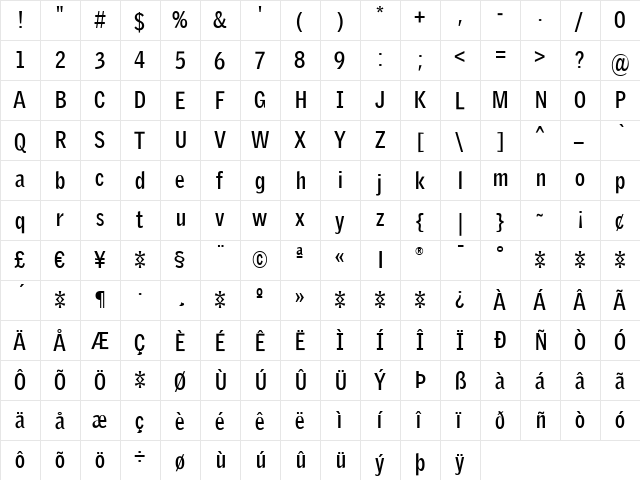
GriffithGothic Cond Bold Font Preview
Design Context for GriffithGothic Cond Typeface
GriffithGothic Cond has the quiet confidence of well-executed sans-serif typography: versatile, unobtrusive, and dependable at any size. The heavy weight commands attention and anchors typographic hierarchies. Its narrow stance lets it pack a punch even in space-constrained designs.
Well-suited to navigation labels, product packaging, and anywhere legibility at scale is essential.
Font Pairing: Use GriffithGothic Cond for headlines alongside a lighter-weight sans or serif for body copy to establish clear visual hierarchy.
Pro Tip: Use GriffithGothic Cond tightly set in headlines and banners — its condensed proportions make it ideal for maximum impact in minimum horizontal space.